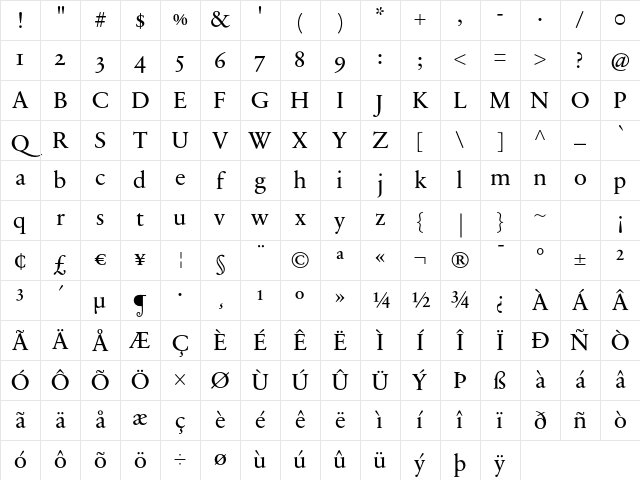
SabonNext RW OsF Regular
Design Context for SabonNext RW OsF
SabonNext RW OsF is a composed and adaptable typeface that performs quietly and consistently across a wide range of design contexts.
Pro Tip: Use SabonNext RW OsF in both headline and body roles to test its range before committing to a single application.